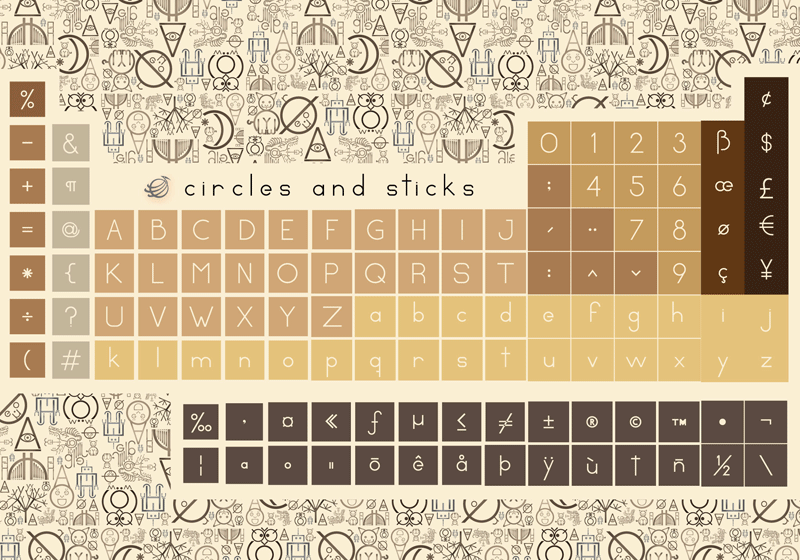
Preview and download Circles and sticks Font. Created by Rafael Saldaña in Basic Sans serif styles with 100% Free license.
Circles and sticks was the way i was taught to write, when i was a kid. I do not know how it is done nowadays. Made some examples illustrating figures you can do with the simple little font. In addition you can watch the whole project on my deviant-art page where you can find the font in vectors, in case you cannot install fonts, and some free png characters. P.S. uploading this font to any other site is forbidden. Only redirecting links to this page are allowed. |